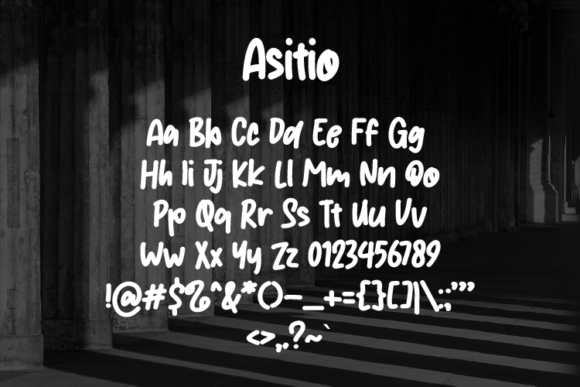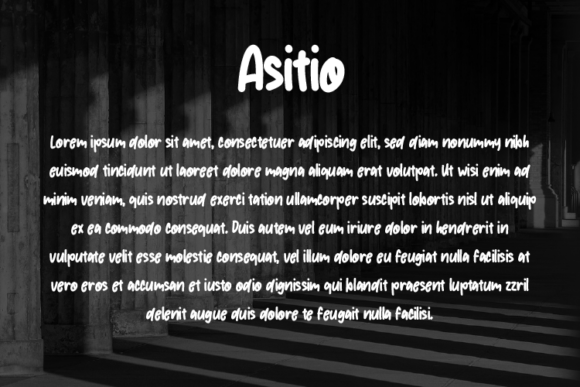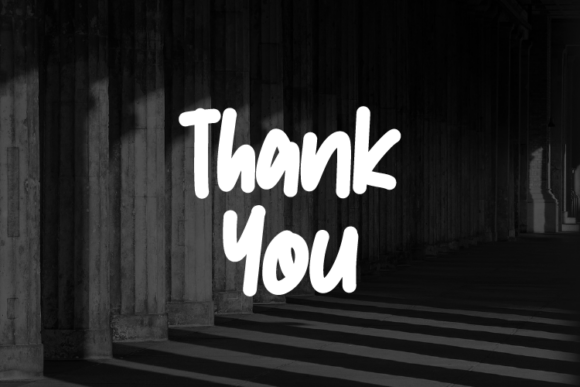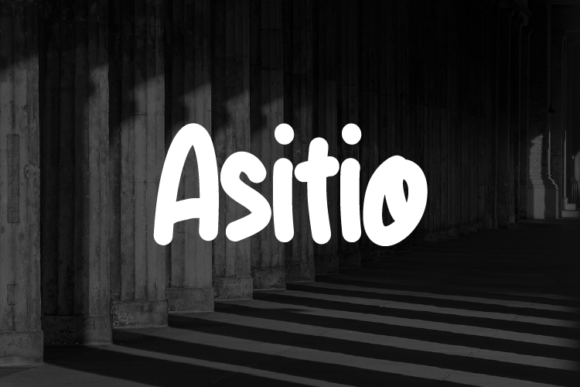
Discover the Elegance of Asitio Font: A Modern Typeface for Versatility and Readability
In the world of typography, the right font can elevate a design from ordinary to extraordinary. For designers and crafters seeking a modern and elegant typeface that offers flexibility and excellent readability across various media, Asitio Font is an exceptional choice. This comprehensive article will delve into the features, benefits, and applications of Asitio Font, highlighting its potential to enhance your design projects.
Introduction to Asitio Font
Asitio is a contemporary typeface designed with versatility and readability in mind. Its sleek and elegant design makes it suitable for a wide range of applications, from digital media to print materials. Whether you’re working on a branding project, creating a website, or crafting a marketing campaign, Asitio Font provides the perfect blend of style and functionality.
Key Features of Asitio Font
Asitio Font boasts several key features that make it an attractive option for designers and crafters:
• Modern and Elegant Design: Asitio’s sleek lines and elegant curves create a sophisticated look that’s perfect for designs that require a touch of refinement.
• Excellent Readability: The font’s clear and legible design ensures that your text remains easy to read, even at smaller sizes or on various devices.
• Flexible and Versatile: Asitio Font is designed to work seamlessly across a wide range of media, from digital screens to print materials.
Benefits of Using Asitio Font
The benefits of using Asitio Font extend beyond its elegant design and versatility:
• Wider Design Range: With Asitio Font, you can create a wide range of designs, from minimalist and modern to elegant and sophisticated.
• Time-Saving: Asitio Font’s excellent readability and versatility save you time and effort in selecting and pairing fonts for your designs.
Applications of Asitio Font
Asitio Font’s flexibility and readability make it suitable for various design applications:
• Branding and Logo Design: Create a lasting impression with Asitio Font’s elegant and modern design.
• Digital Media: Use Asitio Font for website design, social media graphics, and digital marketing materials.
• Print Materials: Asitio Font is perfect for print designs, such as brochures, flyers, and business cards.
Tips for Using Asitio Font Effectively
To get the most out of Asitio Font, consider the following tips:
• Pair with Complementary Fonts: Combine Asitio Font with complementary fonts to create visual interest and hierarchy.
• Experiment with Font Sizes: Take advantage of Asitio Font’s excellent readability by experimenting with different font sizes and styles.
• Use for Body Text and Headings: Use Asitio Font for both body text and headings to create a cohesive and elegant design.
Font Name Asitio Font
Author Eric Kusuma
Asitio Font is a modern and elegant typeface that offers versatility, excellent readability, and cross-platform compatibility. Its .otf format and sleek design make it an ideal choice for designers and crafters seeking a high-quality font for their design projects. With Asitio Font, you can create stunning designs that elevate your brand and leave a lasting impression.